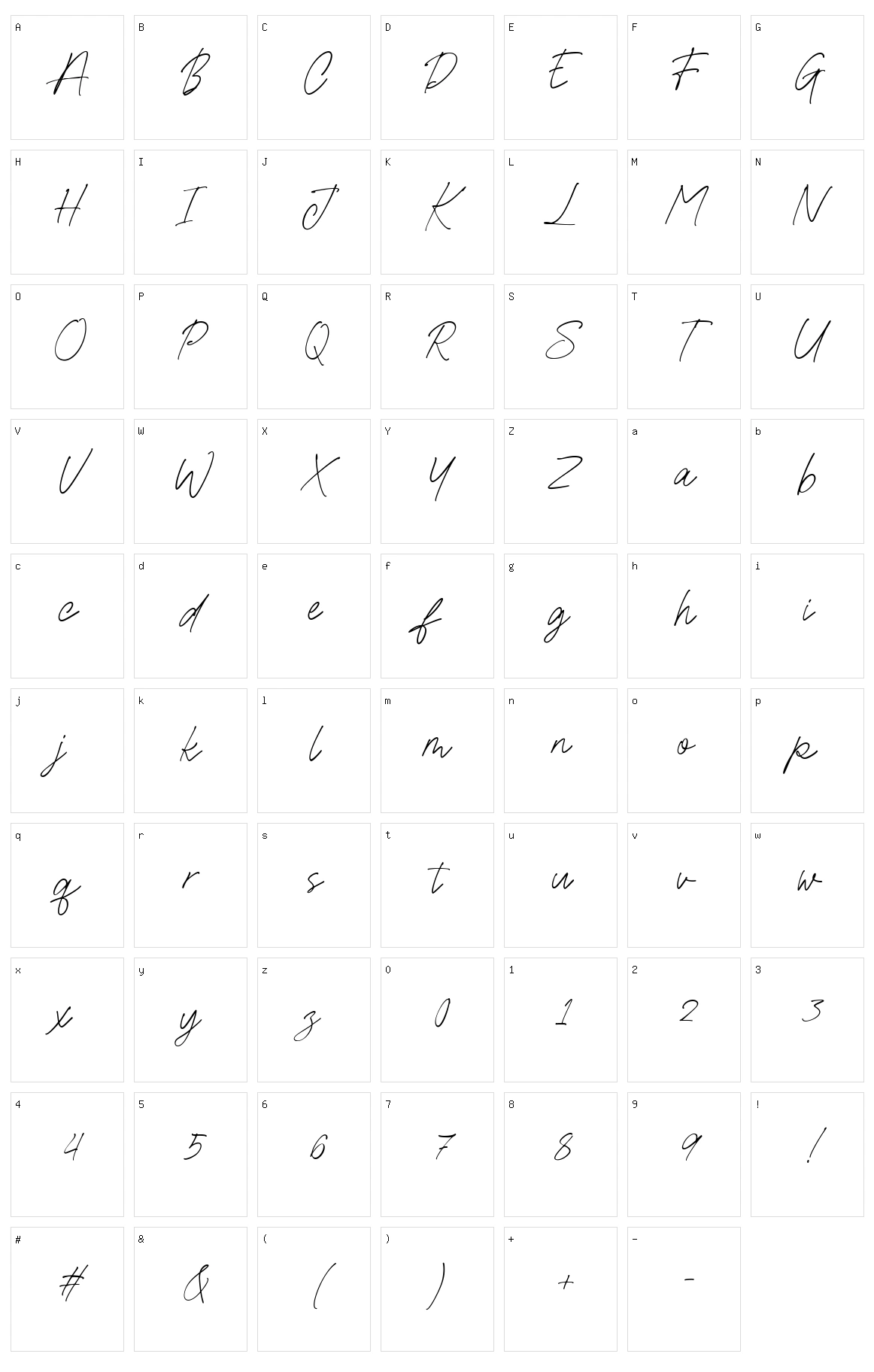
The free font Gaston & Jacklyn is carefully designed by Creatype Studio, showcasing a thoughtful balance of creativity and usability and falls under the Script font style. When you download the ZIP file, it contains only 29.76 KB of font files, making it lightweight and quick to download. Please review the license details below to understand permitted usage and distribution rights. If license information is not available, we recommend using this font for personal projects only or contacting the author directly for commercial usage permissions.